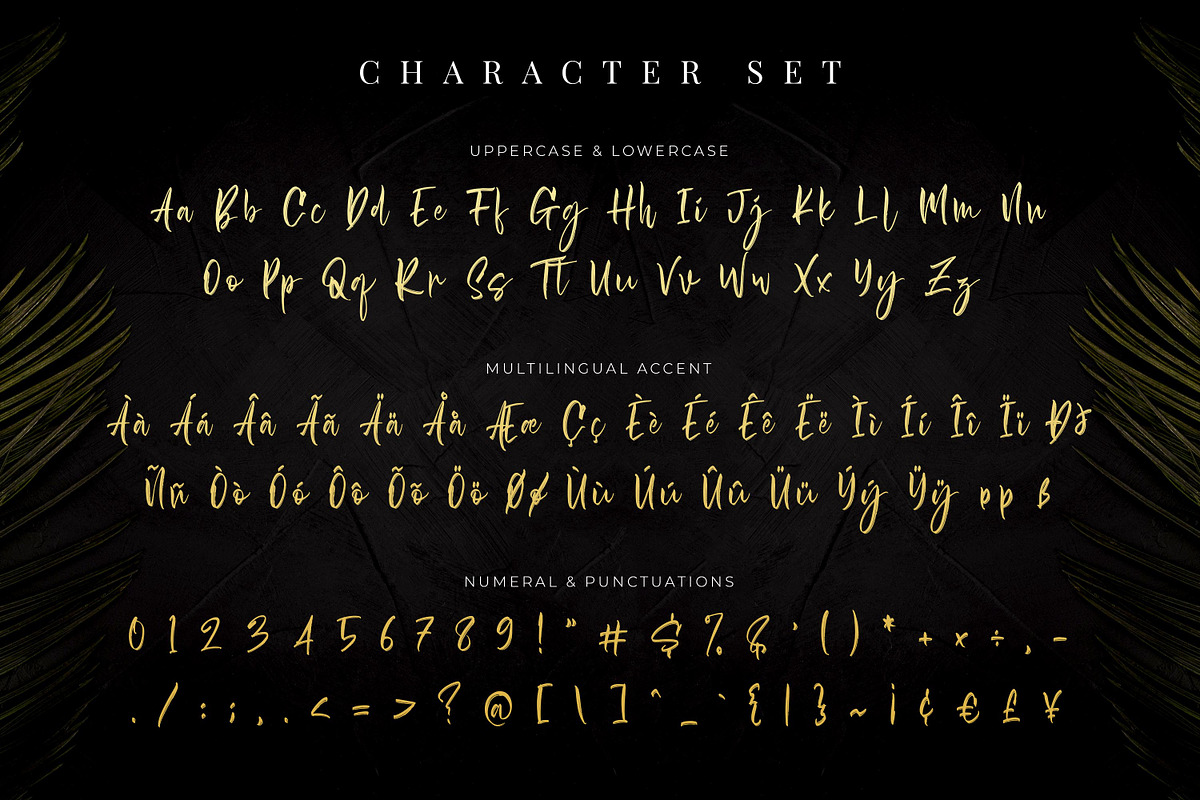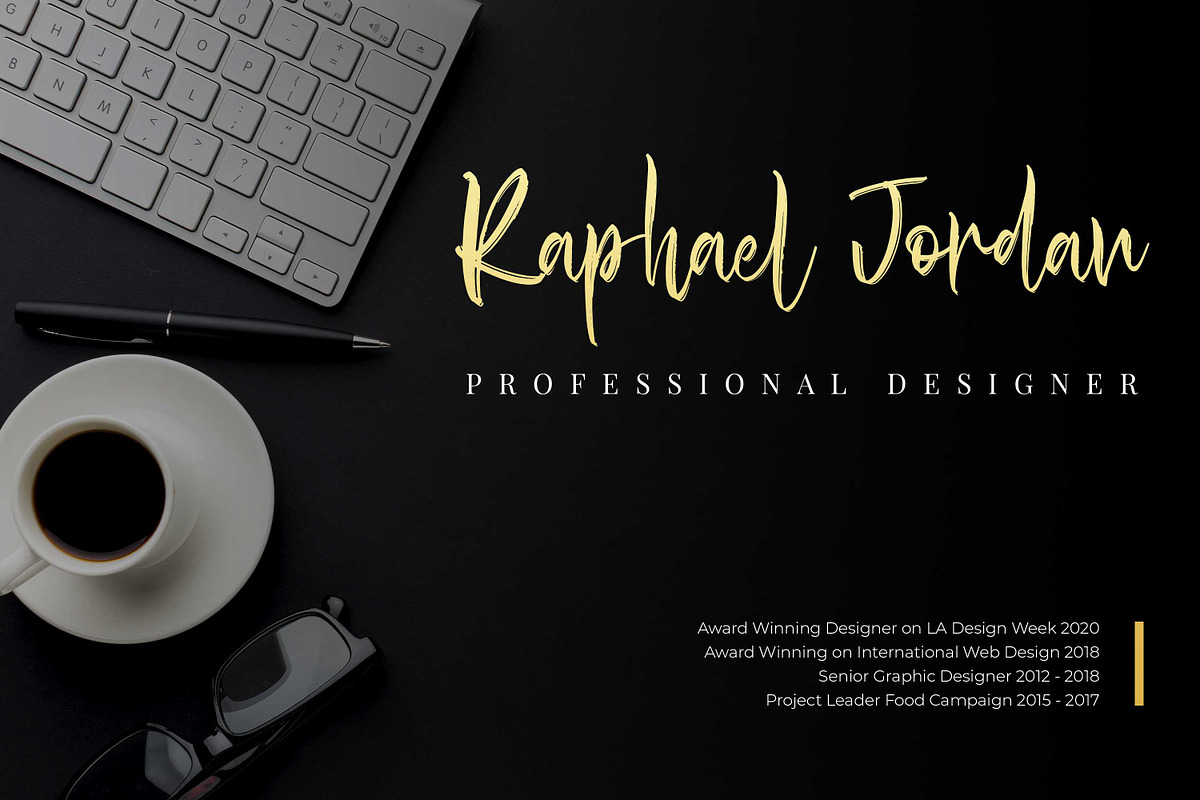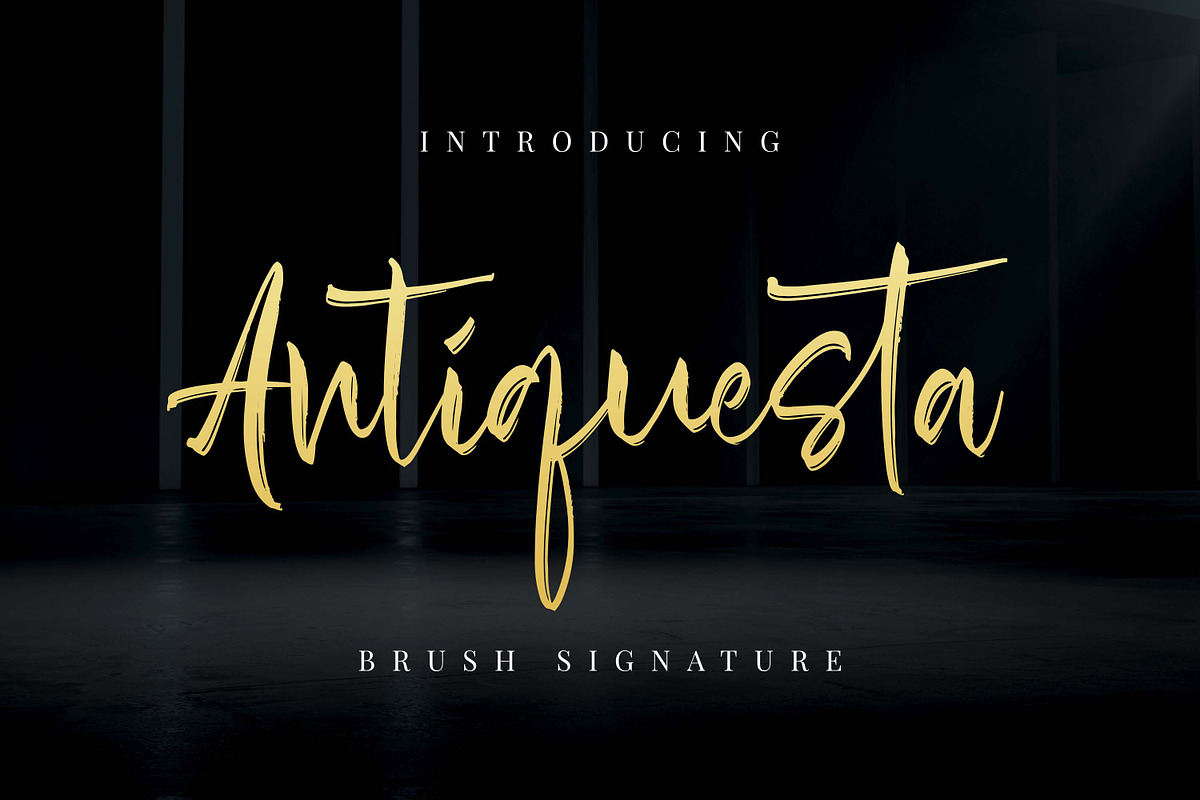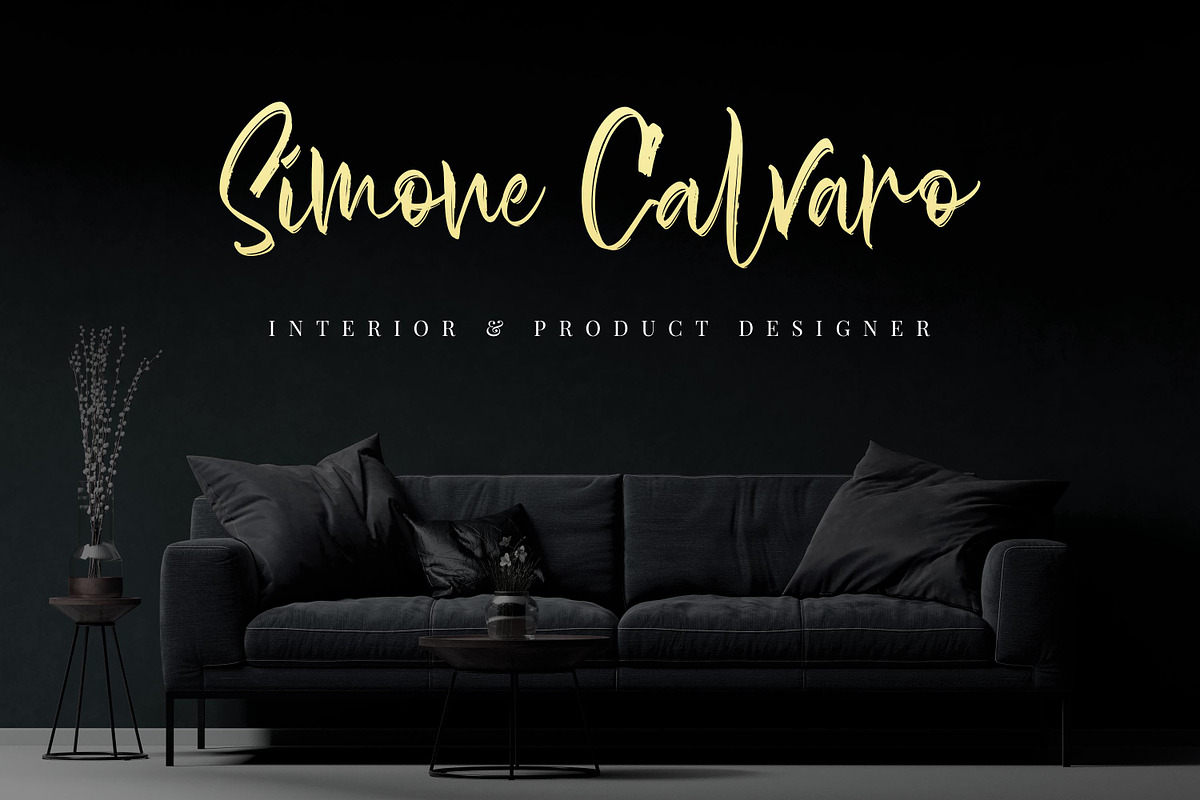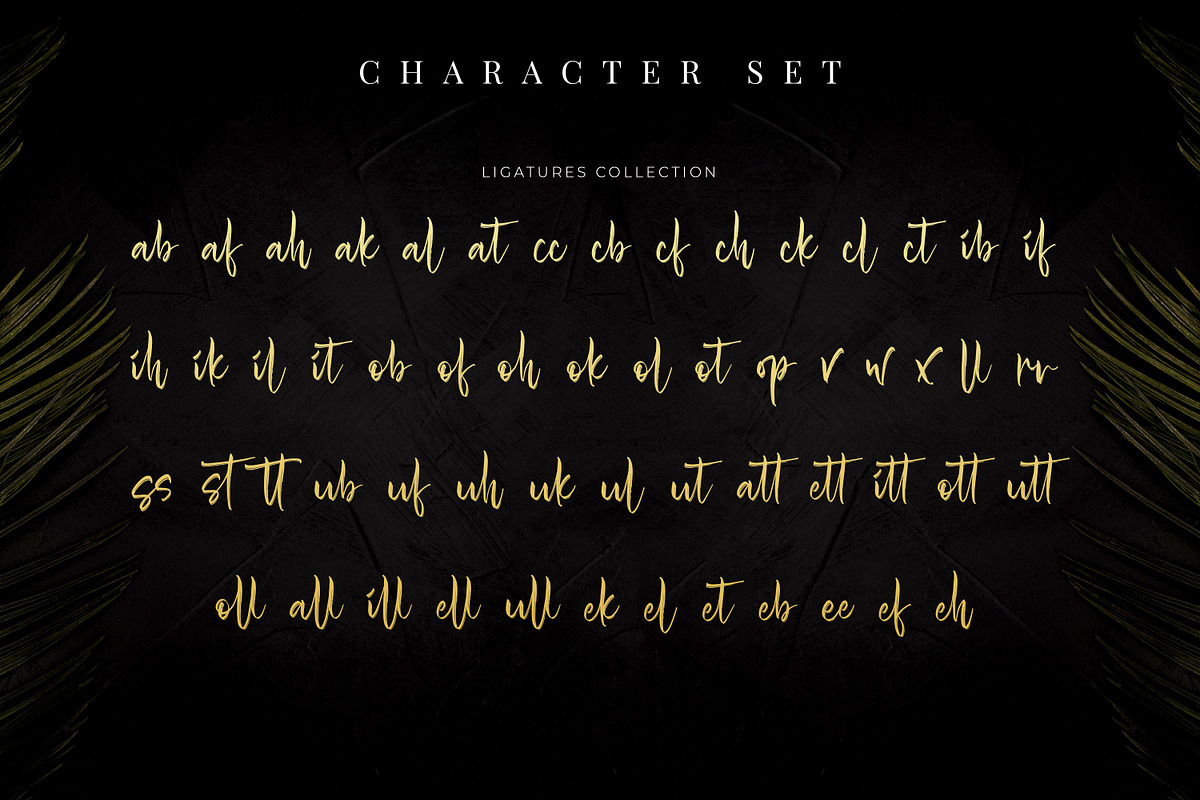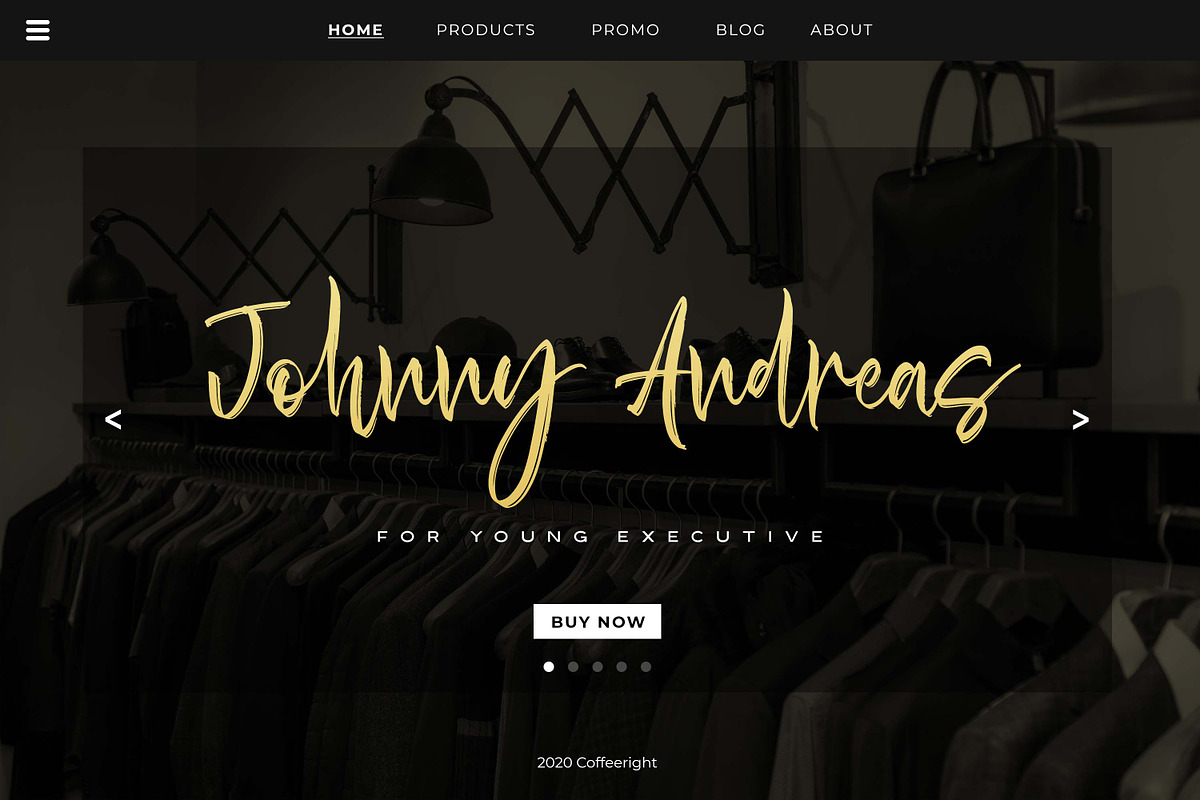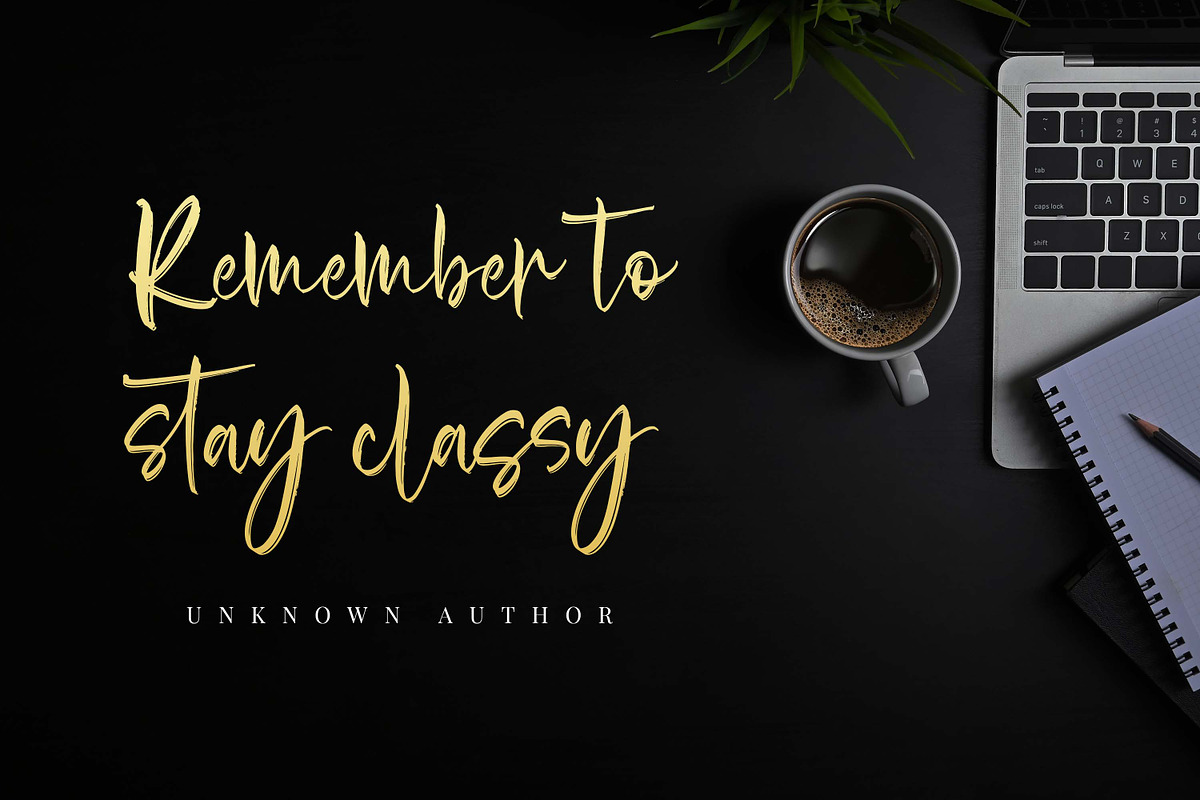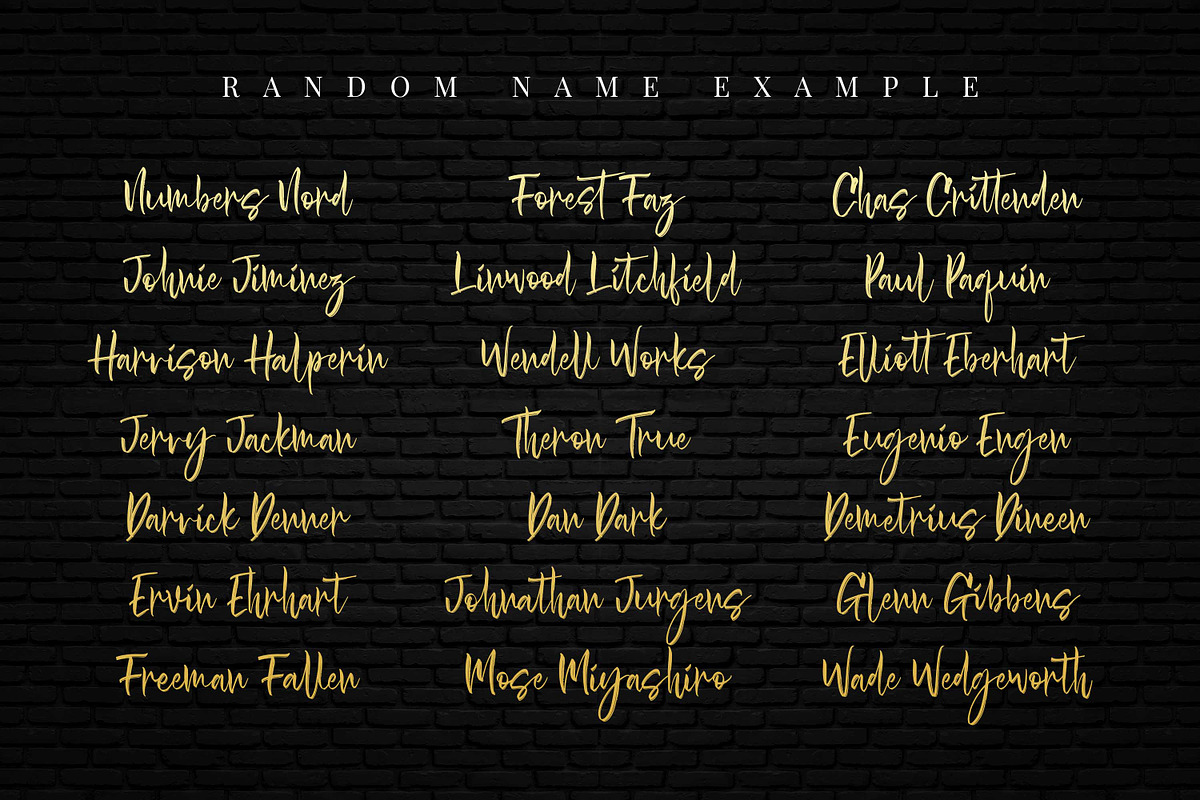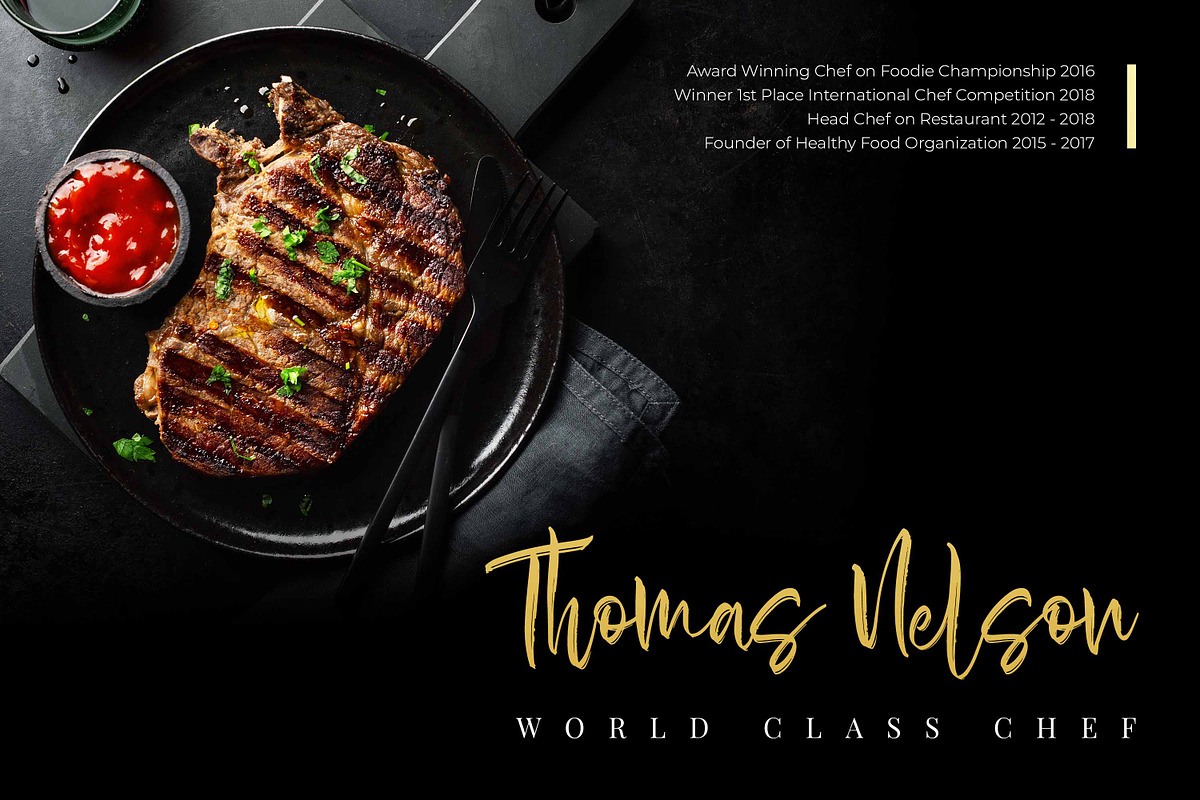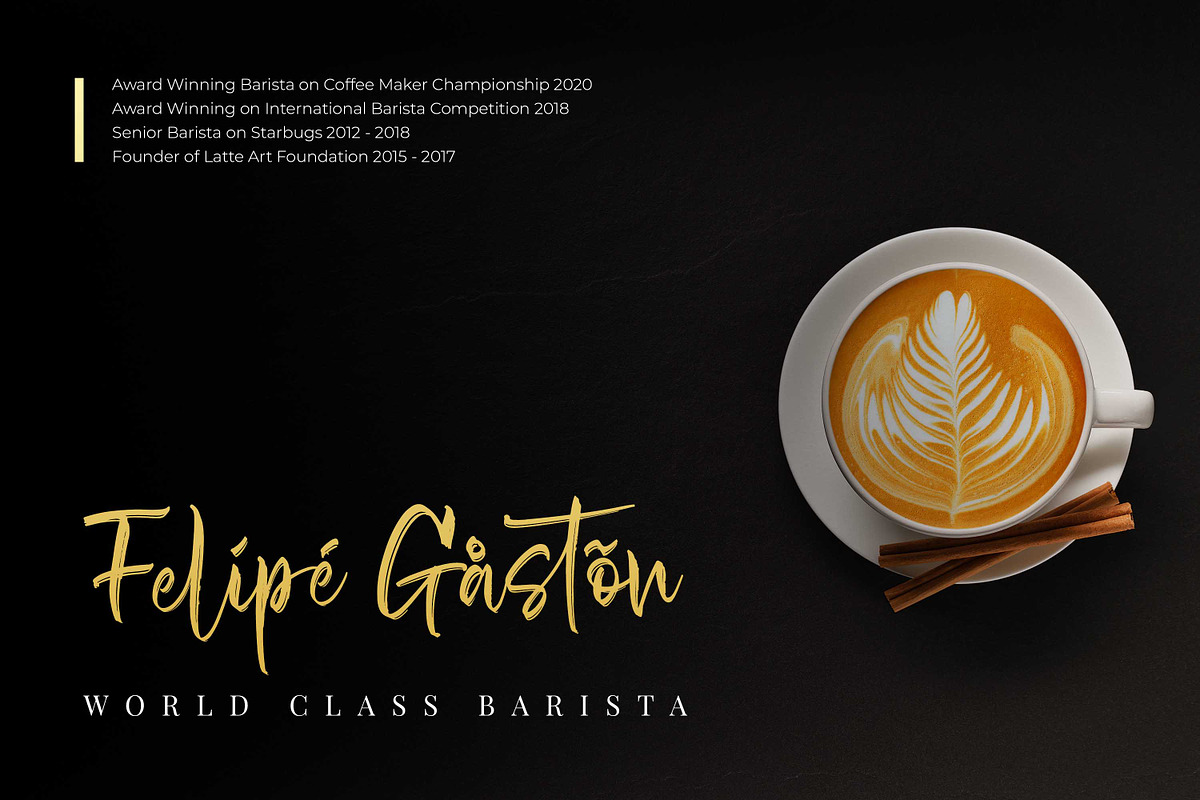
Antiquesta - Brush Signature
Introducing Antiquesta – Signature brush Script font with a Signature Style and classy style, this font is great for your creative projects such as watermark on photography, and perfect for logos & branding, photography, invitation, watermark,advertisements,product designs, stationery, wedding designs,label ,product packaging, special events or anything that need handwritting taste.
- OpenType Ligatures